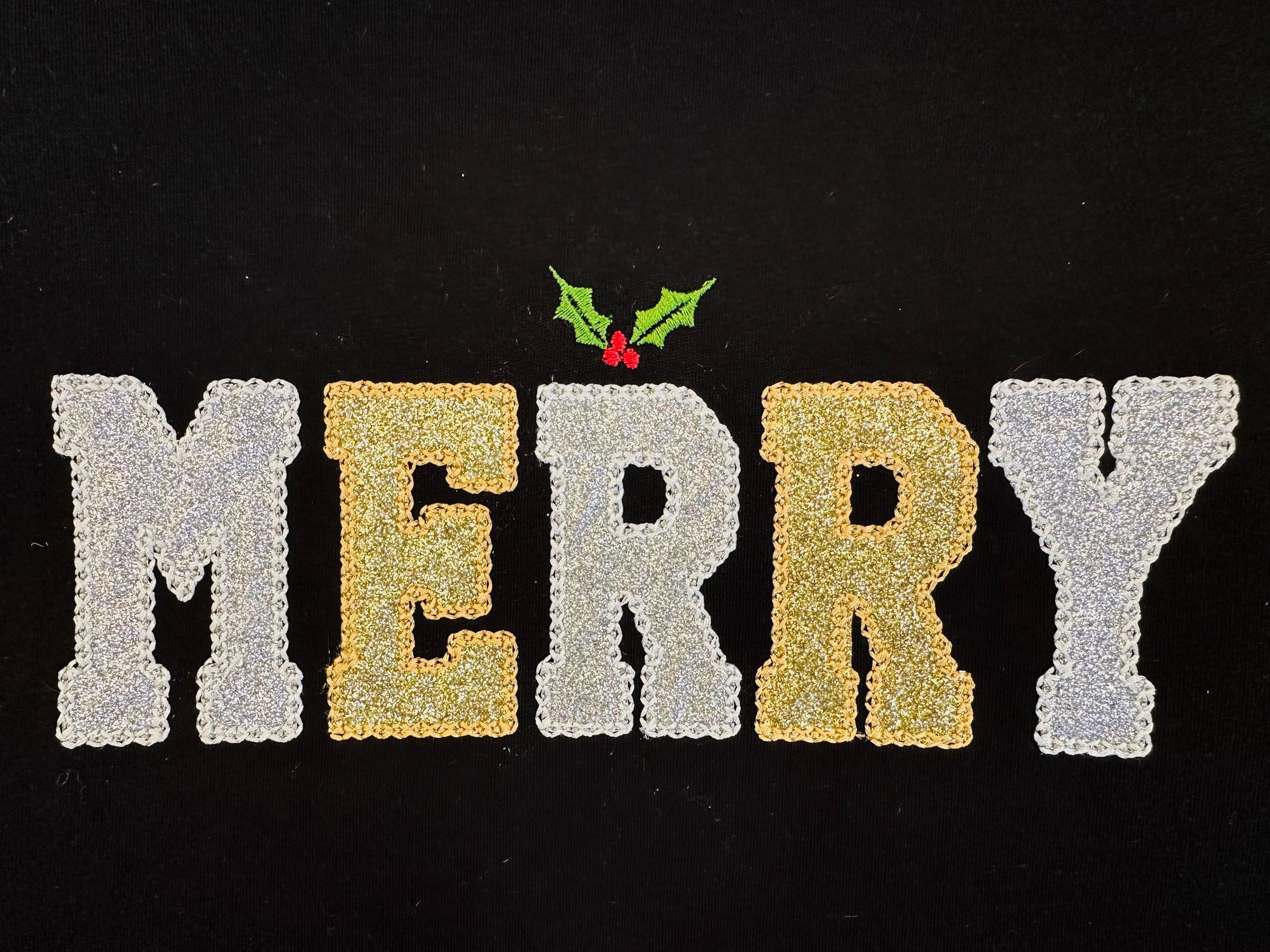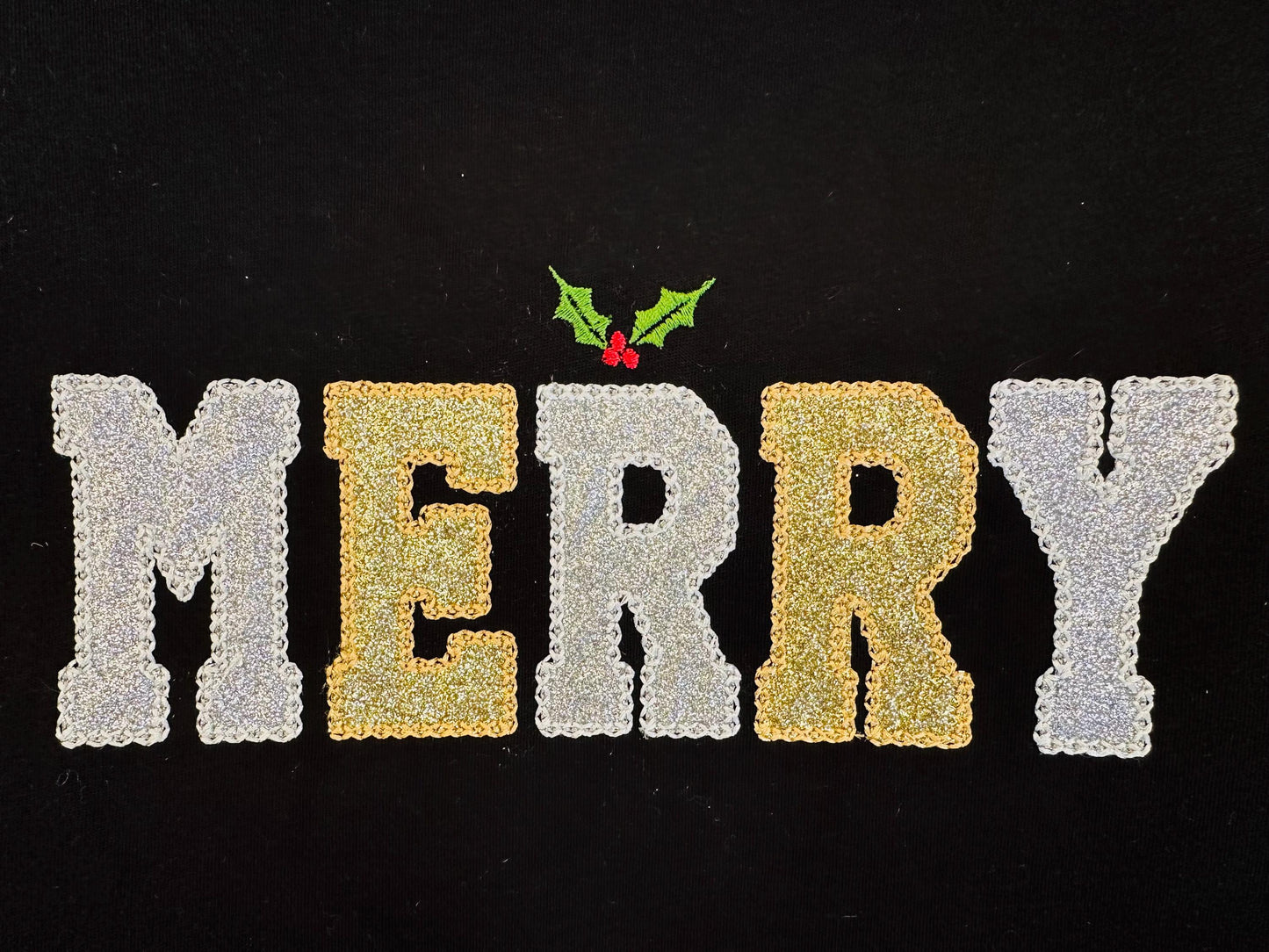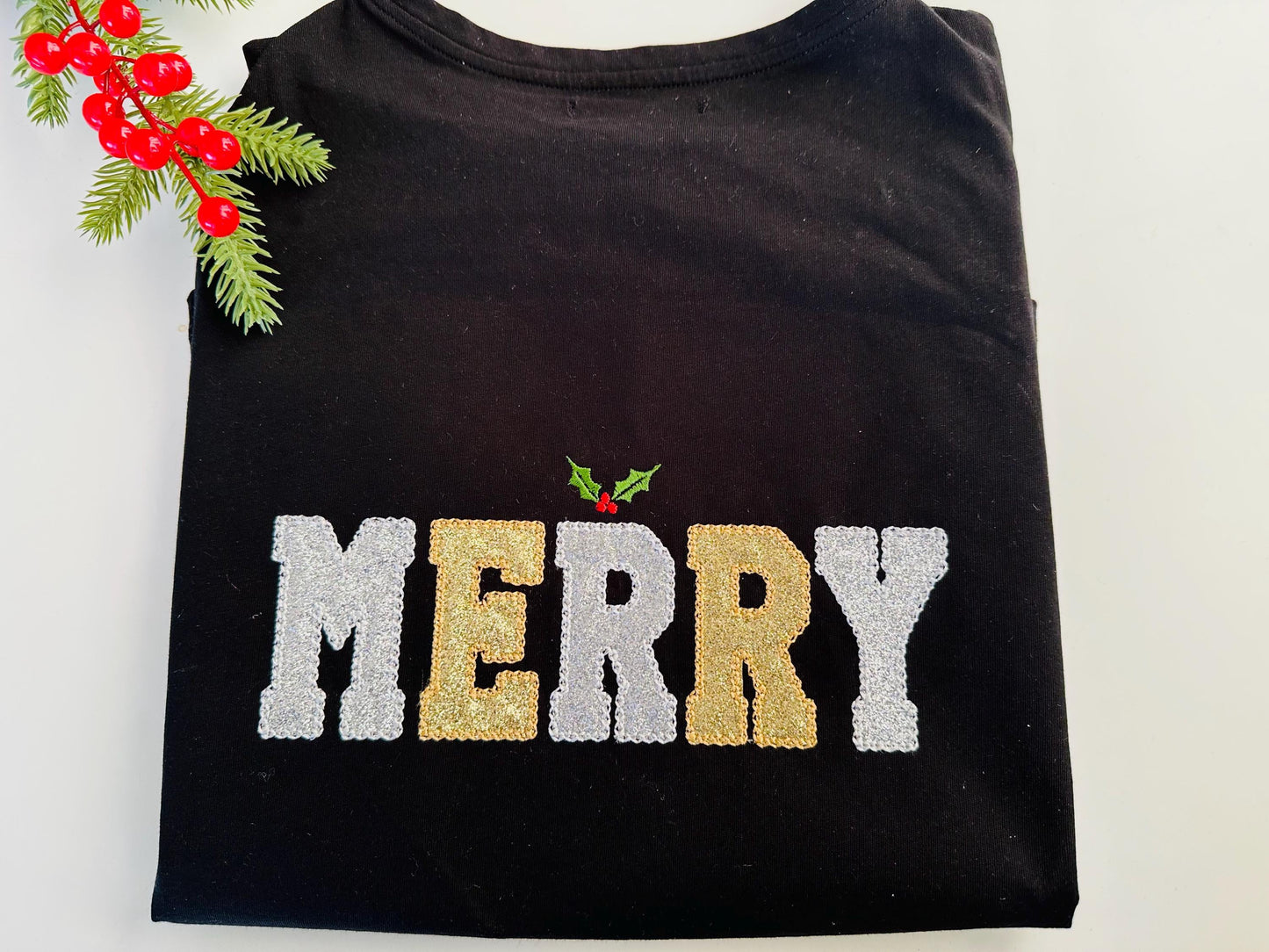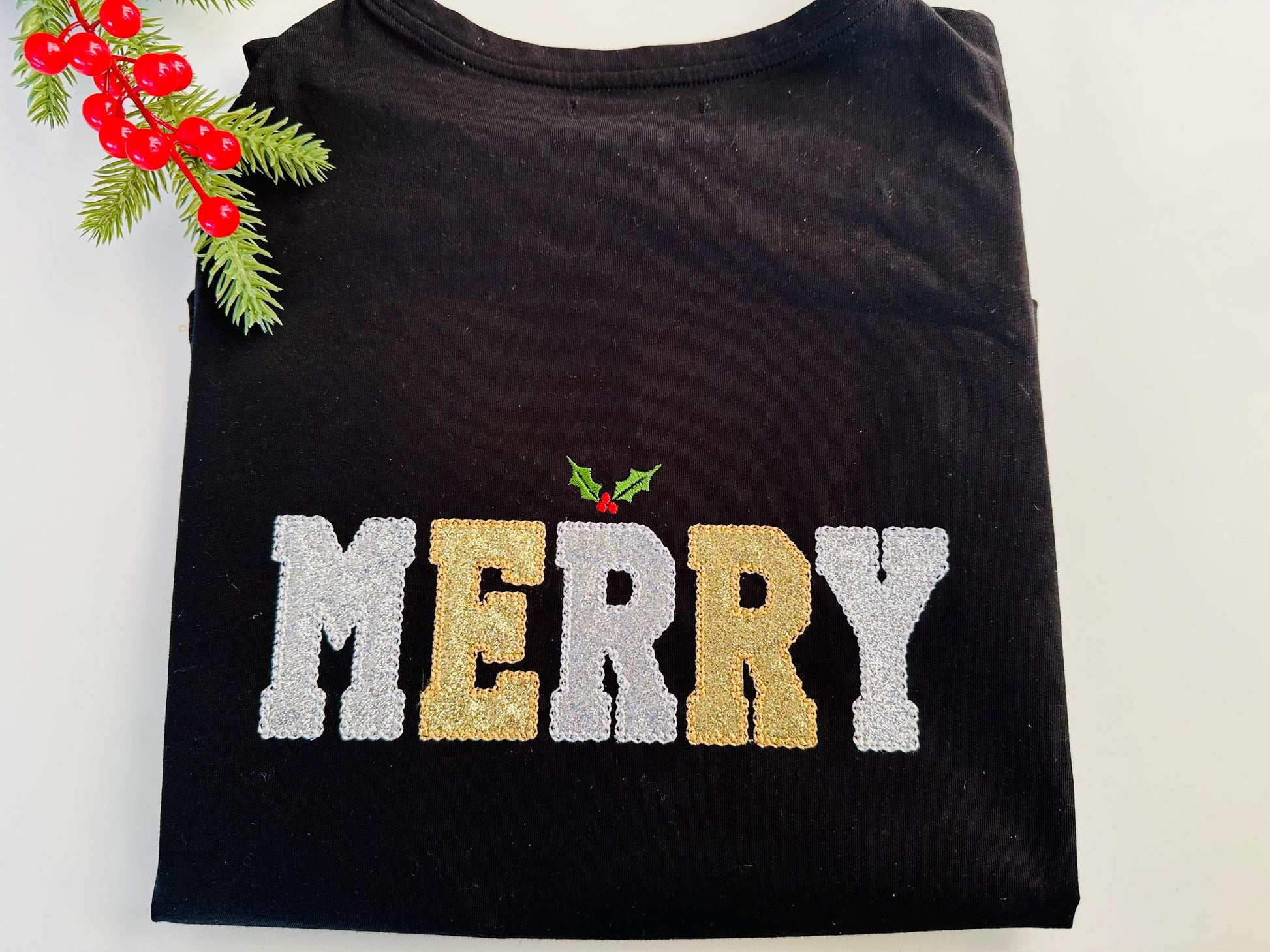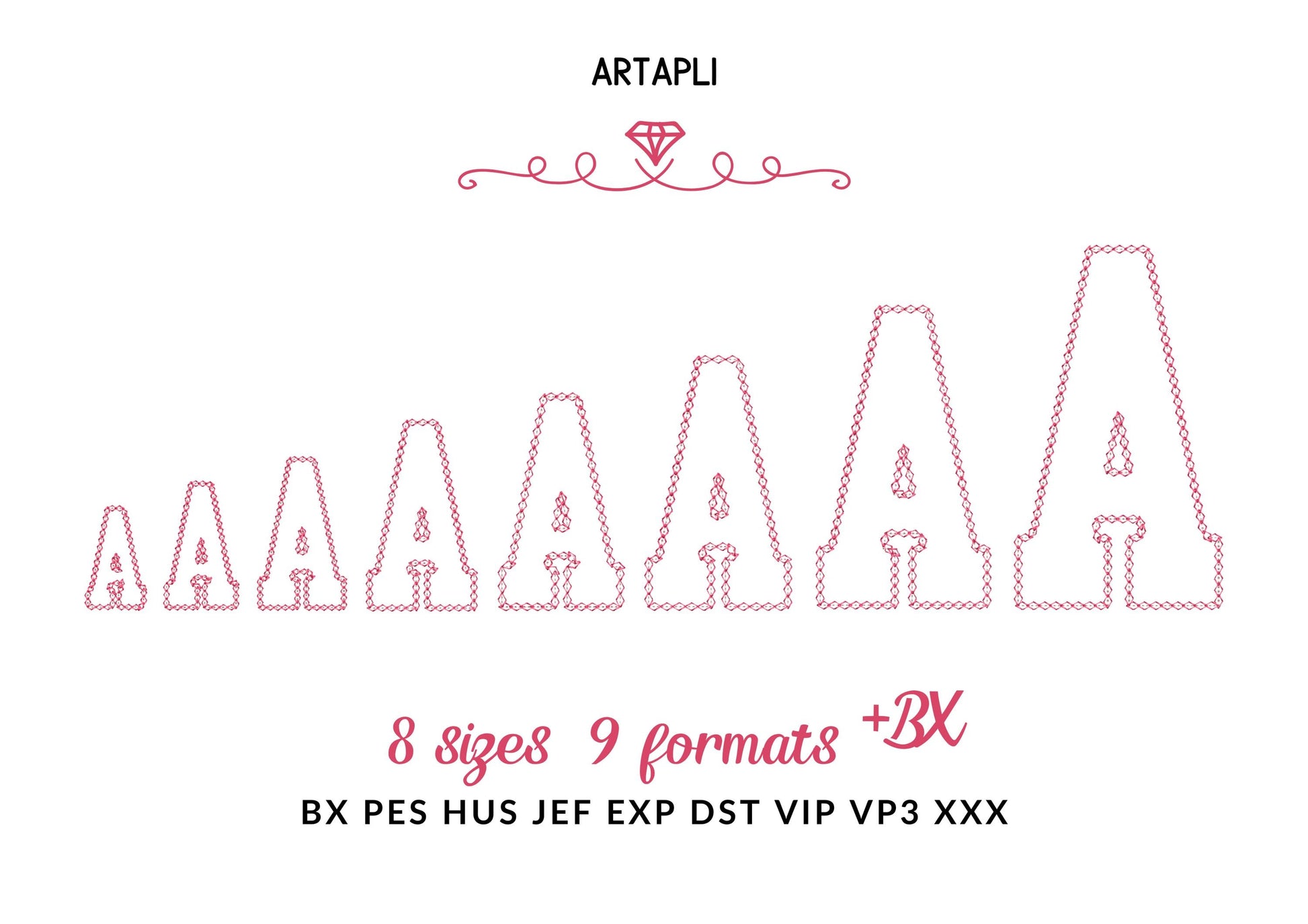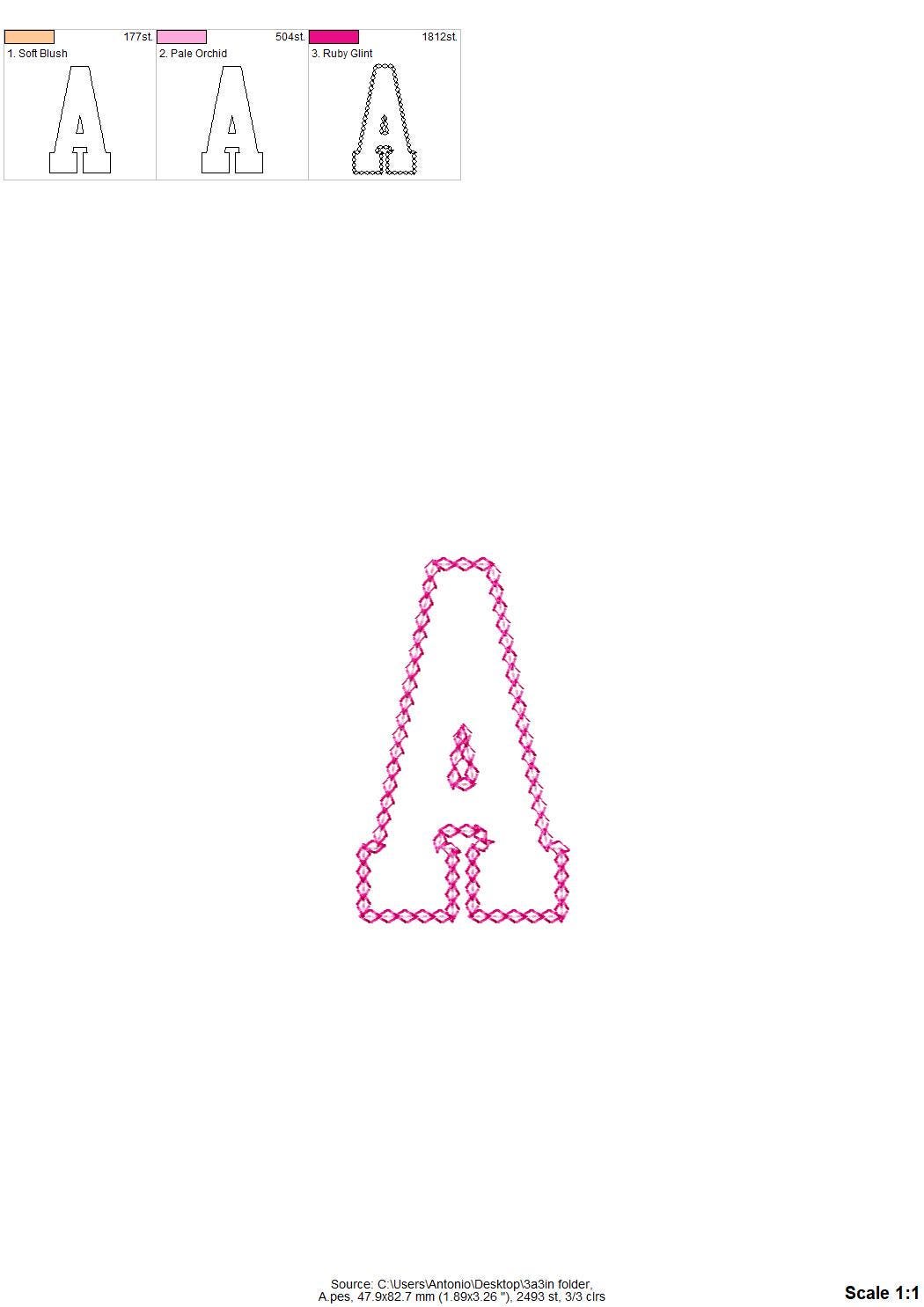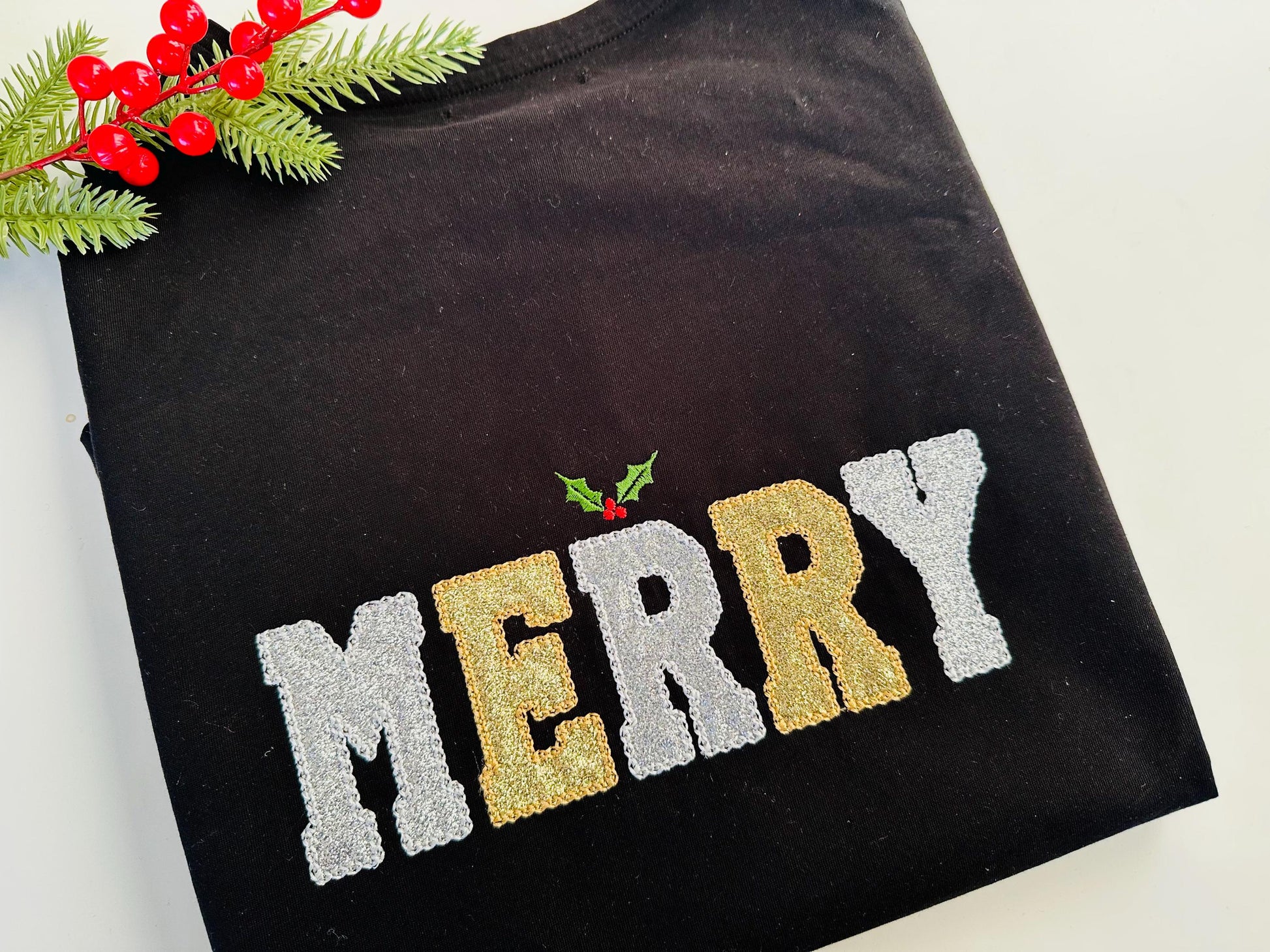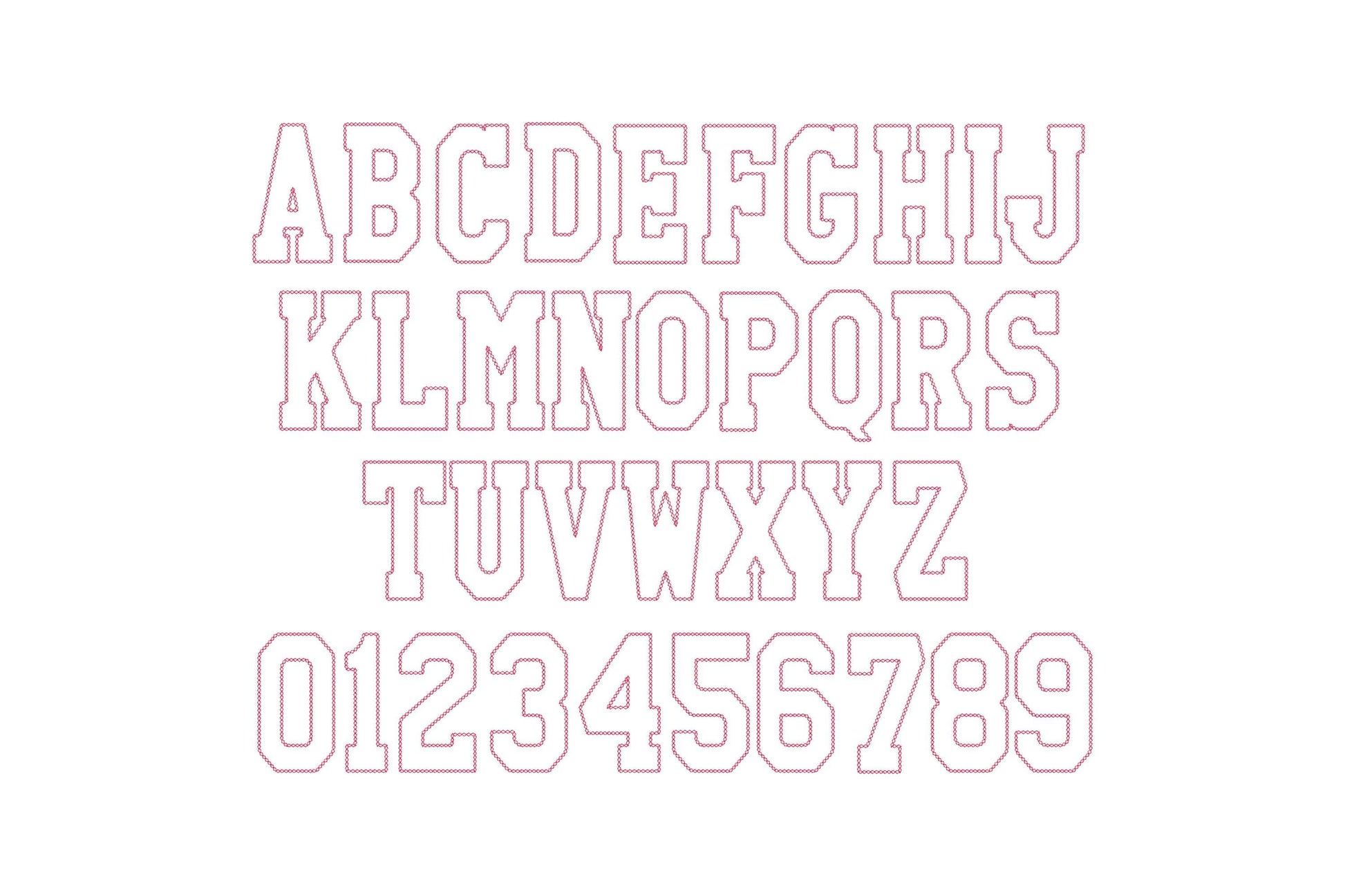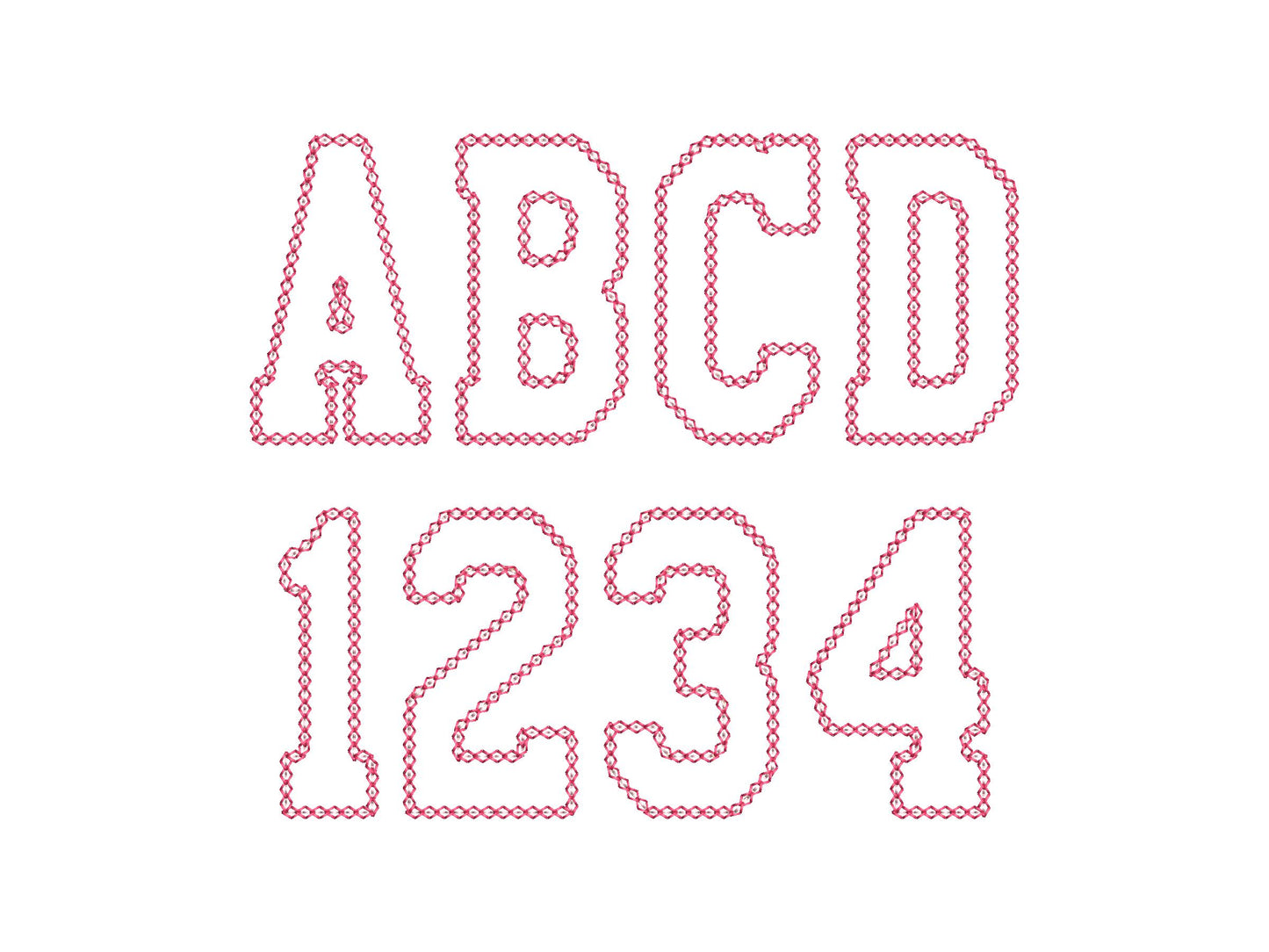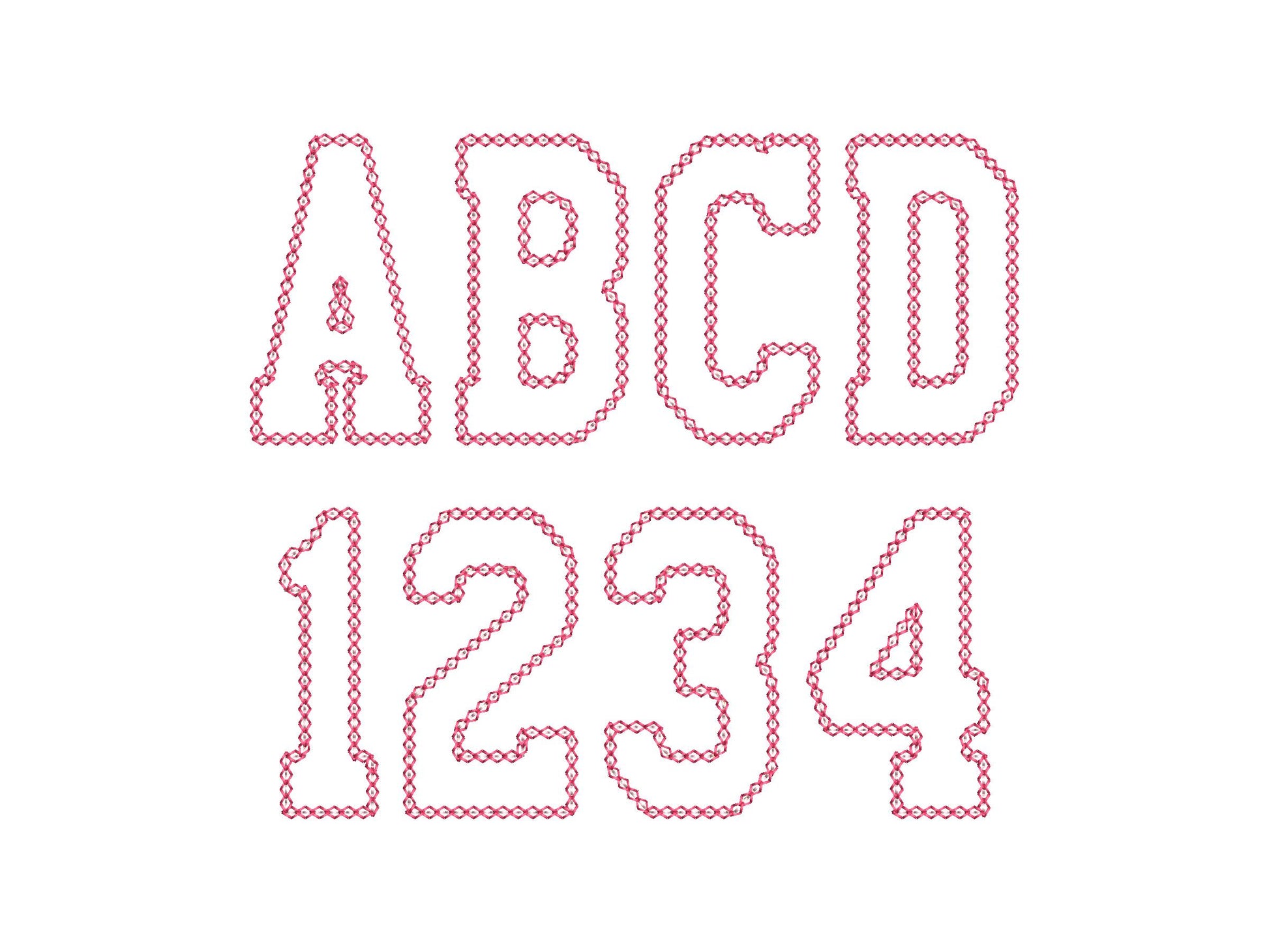
Varsity Font Applique Diamond Stitch Outline
Applique letters, uppercase A to Z and numbers 0 to 9, in eight sizes: 1.8, 2.2, 2.6, 3.3, 3.7, 4.3, 5.2 and 6.2 inches. With glitter vinyl, press it on with a heat press or iron when done; it is safe to wash.
- Diamond stitch varsity applique font
- Uppercase A-Z and numbers 0-9
- 8 sizes, 1.8 to 6.2 in